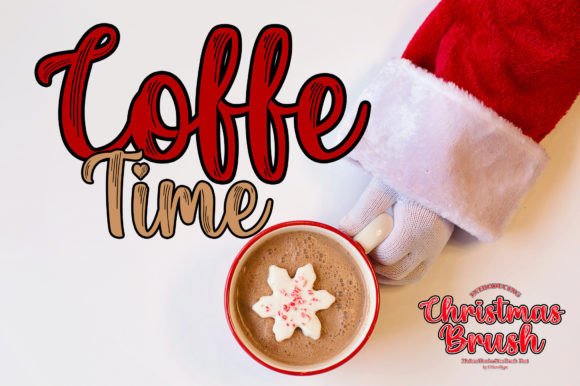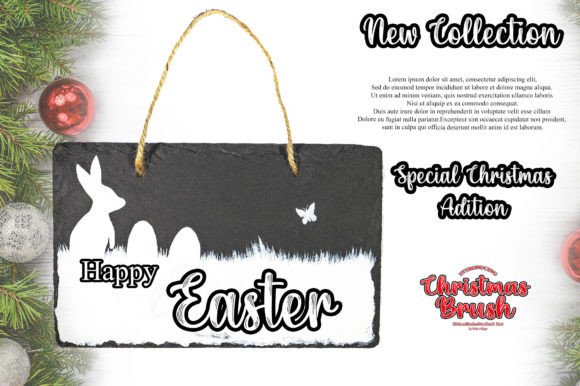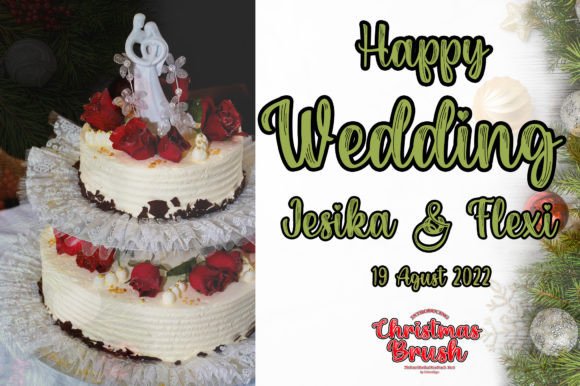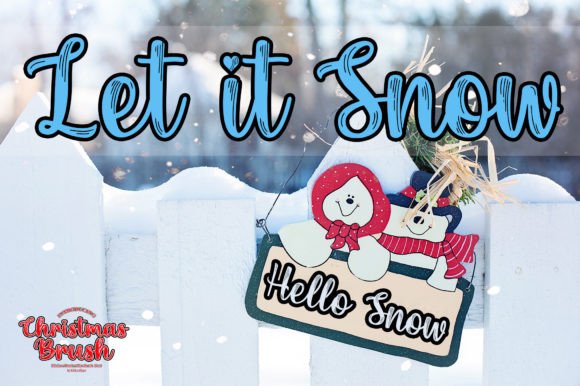
Christmas Brush Font
Christmas Brush is a handwritten font with brush line effects in each font which makes it elegant and special, and it will look stylish and luxurious for any design project, such as wedding invitations, thank you cards, quote, greeting cards, logos, business card, t-shirt design, and other designs.